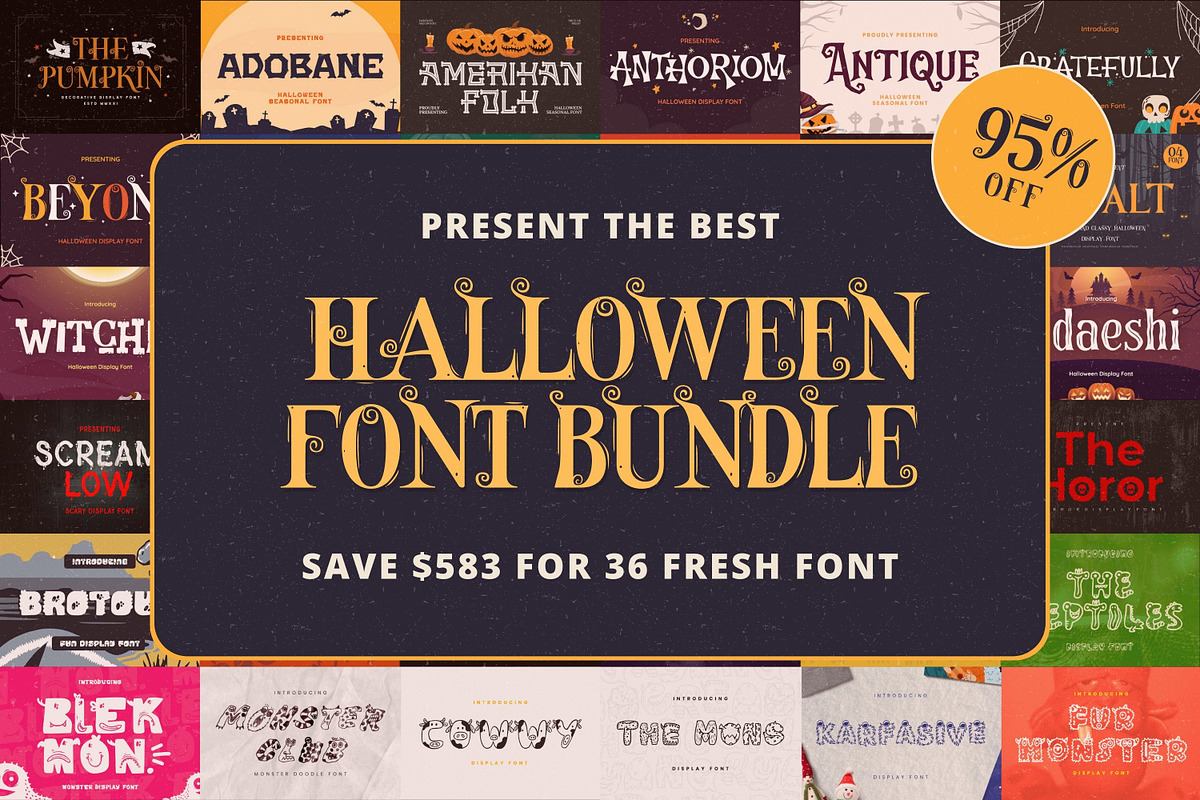
The Best Halloween Font Bundle Free Download is a carefully curated collection of spooky and fun typefaces designed to give your Halloween designs an eerie and playful twist. Featuring a variety of fonts—from creepy and gothic to cute and whimsical—this bundle is perfect for creating everything from haunted house posters to party invitations, merchandise, and social media graphics.
The Best Halloween Font Bundle Free Download brings a variety of Halloween-inspired styles to your design toolkit. Whether you're looking for spooky, handwritten fonts or bold, display styles with spooky elements, this bundle has something to suit every creepy project.